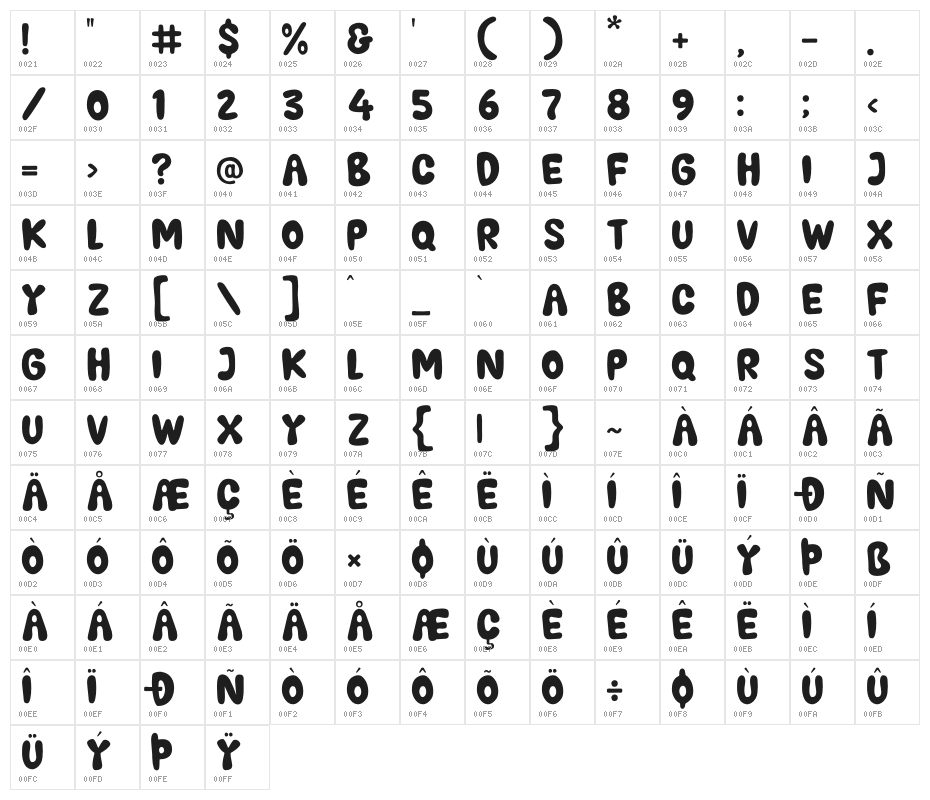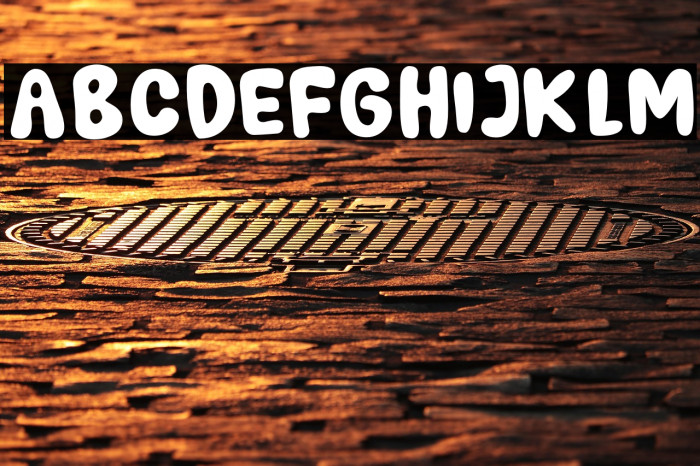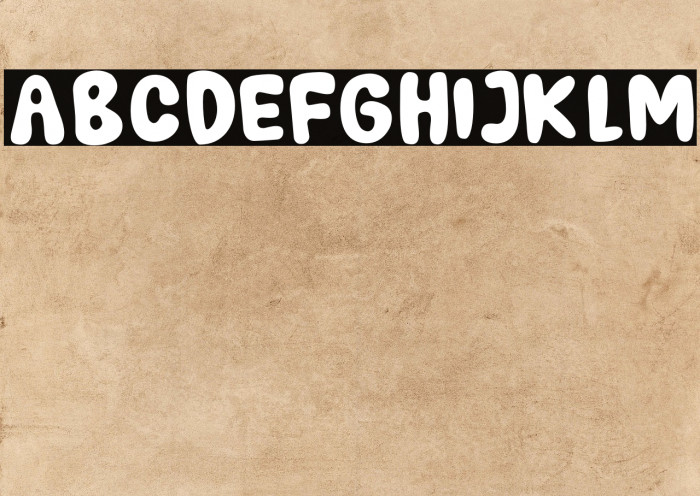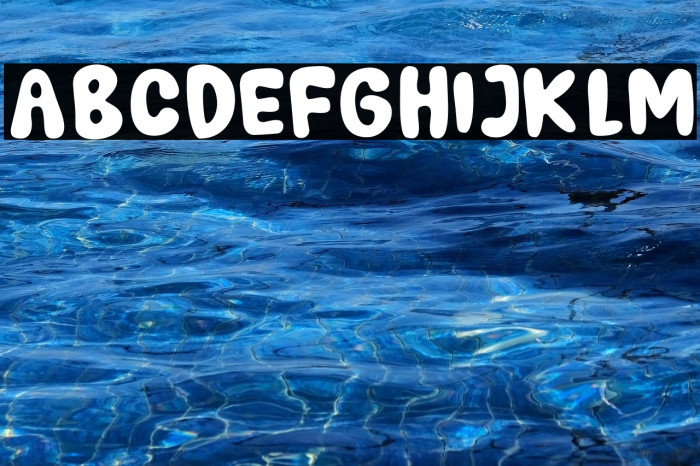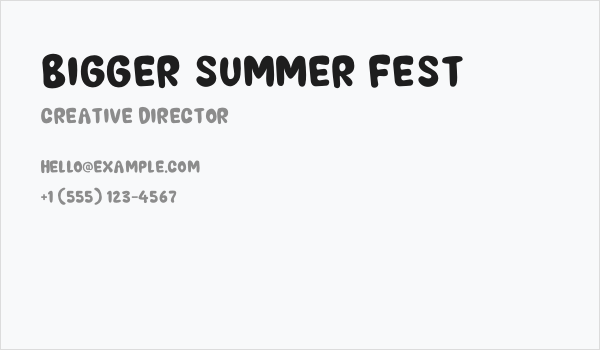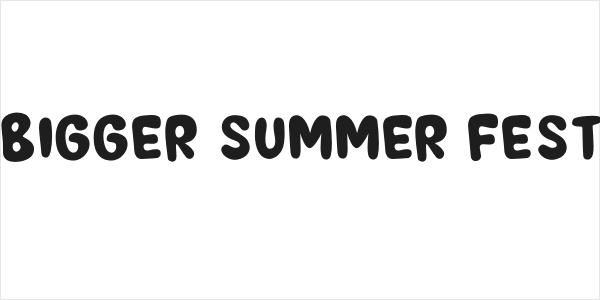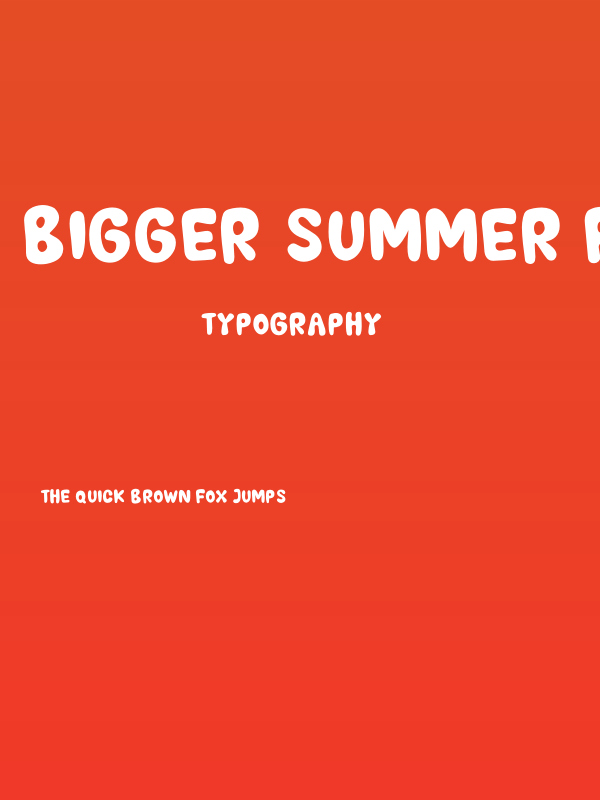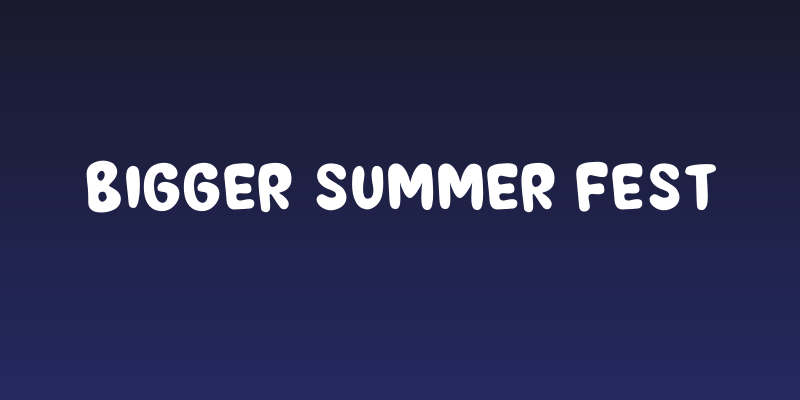
BIGGER SUMMER FEST Font
BIGGER SUMMER FEST Description
This playful and bold font features rounded, thick strokes that give it a friendly and approachable appearance. The characters are slightly irregular, adding a whimsical touch that is both fun and engaging. The uppercase and lowercase letters maintain a consistent style, with a bubbly and informal look that is perfect for casual and lighthearted designs. The numbers and special characters follow the same design principles, ensuring a cohesive look across all text elements. This font's unique style makes it ideal for projects that require a touch of personality and charm.
| Proposed Projects | Ideal for children's books, party invitations, playful branding, and social media graphics. |